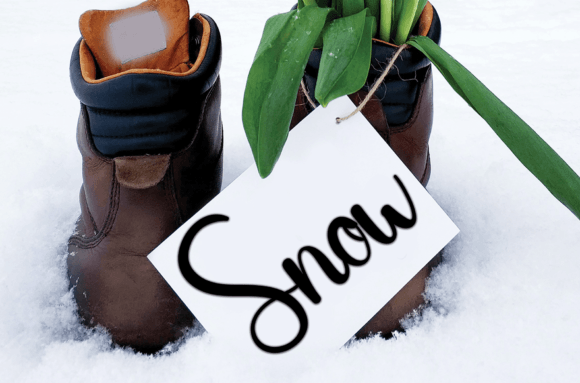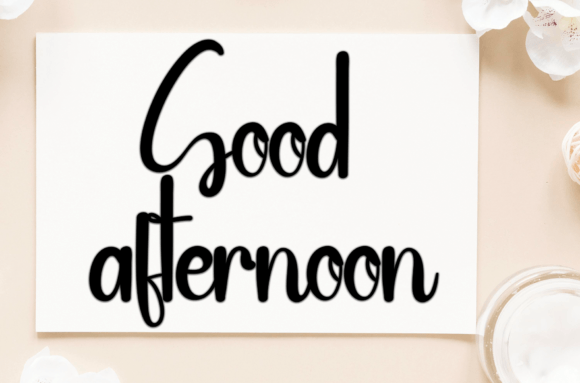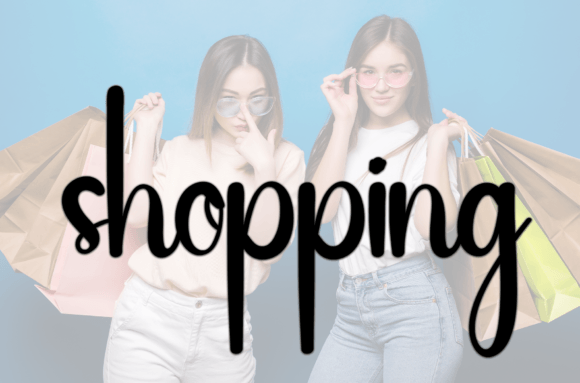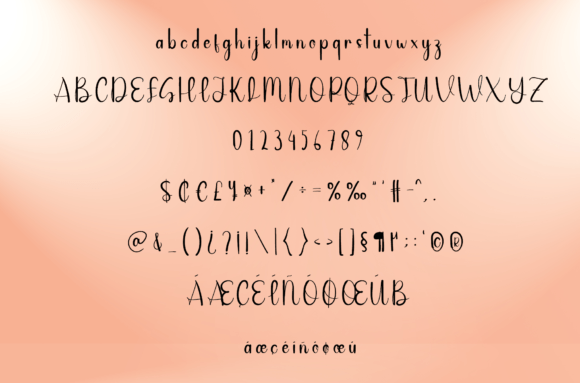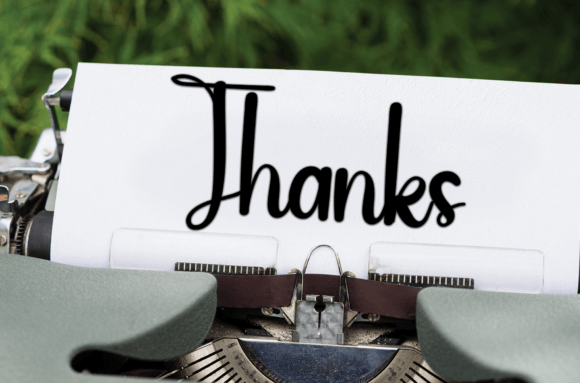
Babysnow Font
About Babysnow Font
Babysnow font is a friendly and charming handwritten typeface crafted to become a beloved favorite in your font collection. Its warm and inviting style makes it perfect for a wide range of creative projects. Whether you are designing invitations, branding, or social media content, Babysnow font adds a playful yet personal touch that brings your designs to life.
Warm and Approachable Handwriting Style
The beauty of Babysnow font comes from its smooth, rounded strokes and natural flow. It offers a clean and readable style while maintaining a lively, handwritten feel. This balance allows the font to suit both casual and professional projects, making it very versatile for many uses.
Versatile Applications for Babysnow Font
Babysnow font is ideal for multiple design purposes, such as:
• Wedding invitations and greeting cards
• Brand logos and business stationery
• Social media graphics and promotional posts
• Personal notes and creative lettering
• Flyers, posters, and other printed materials
Thanks to its friendly design, Babysnow fon works well in both print and digital formats, enhancing the overall appeal of your projects.
Adding Personality and Life to Designs
Using Babysnow fon injects energy and character into your work. The font’s inviting nature helps create a stronger connection with your audience, making your message more engaging and memorable. It enriches your creativity by offering a handwritten style that is both fresh and timeless.
Why Choose Babysnow Fon?
• Friendly and approachable handwritten style
• Clear and legible letterforms
• Suitable for a variety of creative projects
• Adds warmth and personality
• Works great for print and digital media
Final Thoughts on Babysnow Fon
In summary, Babysnow fon is a friendly and inviting handwritten typeface that fits beautifully with wedding invites, branding, social media, and more. Its warm and lively style makes it a valuable tool for designers seeking to add personality and charm to their work.